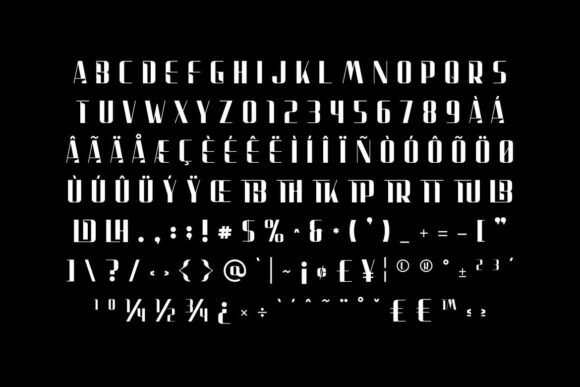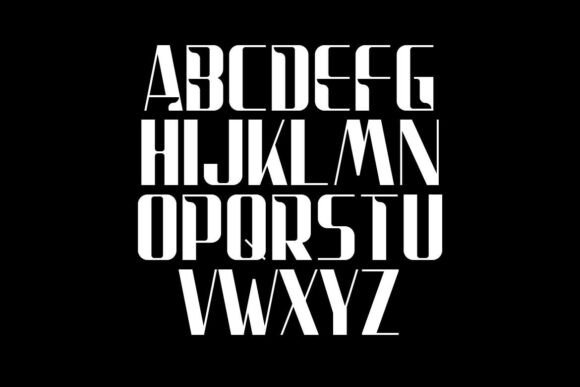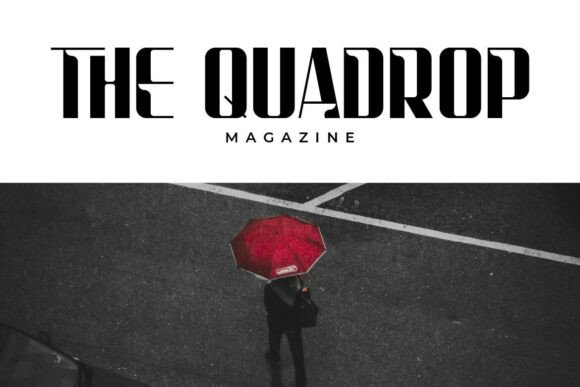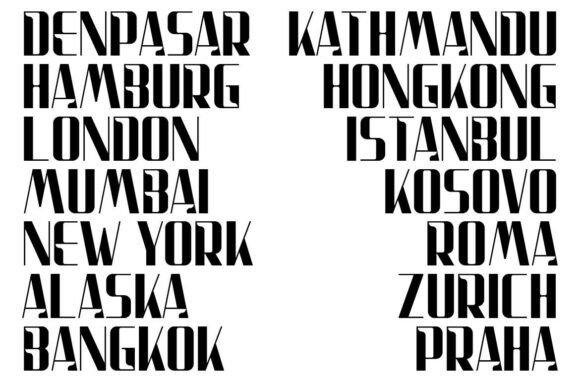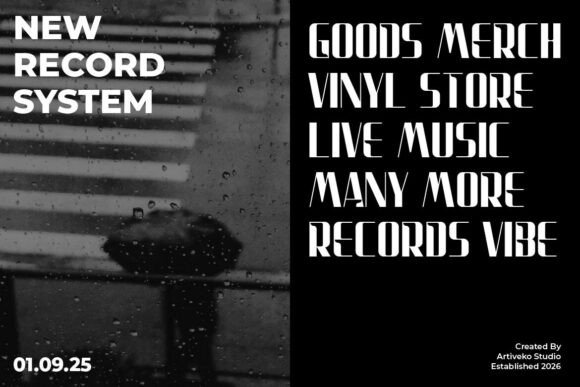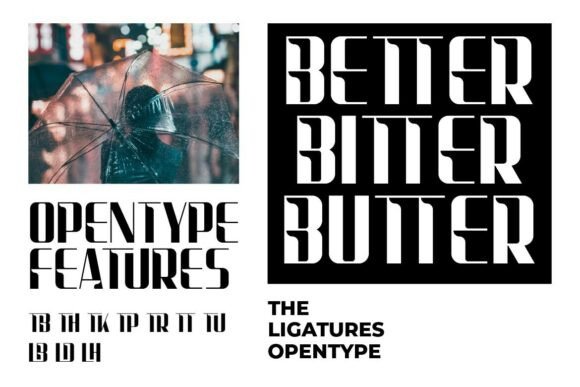
Introducing Atrago Font: A Modern Display Powerhouse
In the world of typography, a well-crafted font can elevate a design from ordinary to extraordinary. Atrago Font is a striking modern display font that embodies the perfect blend of style, sophistication, and impact. Designed to deliver a powerful visual presence with a clean, contemporary aesthetic, Atrago is an excellent choice for designers and crafters looking to make a statement.
The Design Philosophy Behind Atrago
Atrago’s design is rooted in a bold and confident approach to typography. Its bold strokes, sharp edges, and carefully considered proportions work in harmony to create an instantly recognizable typographic voice that commands attention. This font is not just about aesthetics; it’s about making a statement. Whether you’re working on a branding project, a website, or a marketing campaign, Atrago’s unique character is sure to leave a lasting impression.
Key Features of Atrago Font
- Bold Strokes: Atrago’s bold strokes give it a strong and assertive presence, making it perfect for headlines, titles, and any design element that needs to stand out.
- Sharp Edges: The sharp edges of Atrago add a touch of modernity and sophistication, giving your designs a clean and contemporary look.
- Confident Proportions: The carefully balanced proportions of Atrago ensure that it remains legible and visually appealing, even at larger sizes.
- Clean Aesthetic: Atrago’s clean and minimalist design makes it incredibly versatile, allowing it to be used across a wide range of applications and industries.
Use Cases for Atrago Font
Atrago’s versatility and impact make it suitable for a variety of design projects, including:
- Branding and Logo Design: Create a lasting impression with Atrago’s bold and confident typography.
- Web Design: Use Atrago to create stunning website headers, titles, and calls-to-action that grab attention.
- Marketing and Advertising: Make your marketing materials stand out with Atrago’s powerful and modern aesthetic.
- Print Design: Elevate your print designs, such as brochures, posters, and business cards, with Atrago’s clean and sophisticated look.
Why Choose Atrago Font?
In a sea of fonts, Atrago stands out for its unique combination of style, impact, and versatility. Here are just a few reasons why designers and crafters should consider Atrago for their next project:
- Instant Recognition: Atrago’s distinctive design ensures that your typography will be instantly recognizable and memorable.
- Flexibility: Atrago’s clean aesthetic and bold strokes make it suitable for a wide range of design applications and industries.
- Time-Saving: With Atrago, you can create stunning designs quickly and efficiently, thanks to its clear and legible design.
Atrago Font is a powerful and modern display font that is sure to elevate your designs to the next level. Its bold strokes, sharp edges, and confident proportions make it an excellent choice for designers and crafters looking to create a lasting impression. With its versatility, flexibility, and instant recognition, Atrago is an essential tool for any design project. So why wait? Discover the impact of Atrago Font today and take your designs to new heights!